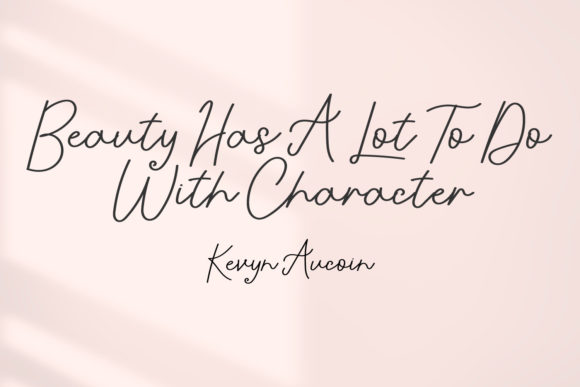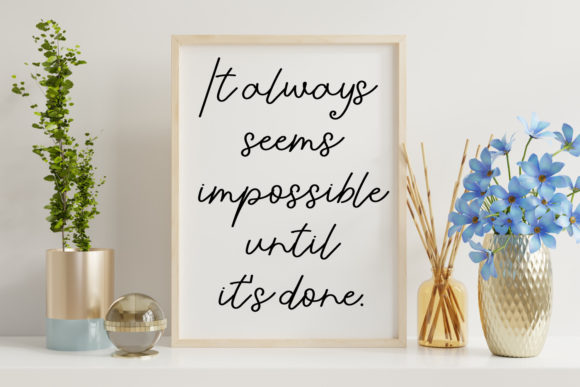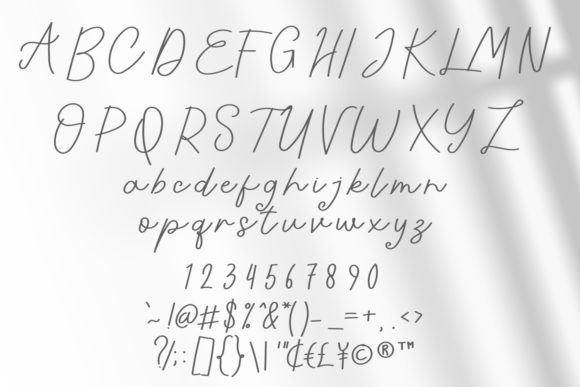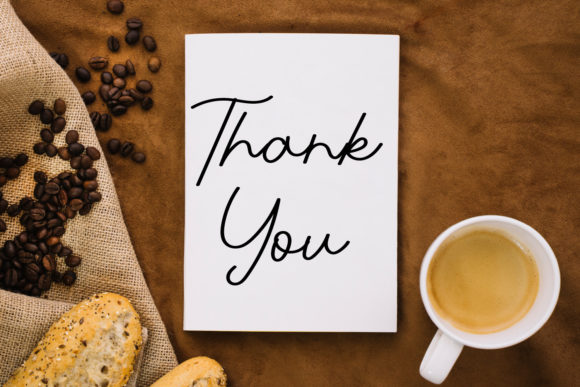
About Handwritten Font
Handwritten is a delightful and whimsical script font, characterized by its sweet, flowing, and thin strokes. With characters that dance along the baseline, this font brings a touch of luxury to any design project, adding a spark of elegance and charm.
The sweetness of Handwritten is evident in its whimsical design, making it a perfect choice for projects that require a lighthearted and playful aesthetic. The flowing and thin script adds an air of sophistication, making it versatile for a wide range of applications.
In wedding invitations, Handwritten becomes a romantic and luxurious choice. The font’s delicate strokes and dancing characters create an enchanting atmosphere, setting the tone for a celebration filled with elegance and charm. Its ability to convey both sweetness and luxury makes it an ideal companion for creating memorable invitations.
The flowing nature of Handwritten adds a sense of movement and grace to the characters, making it suitable for various design projects. Whether used in branding, packaging, or social media graphics, the font brings a touch of refinement, turning ordinary designs into visually captivating creations.
Handwritten’s thin script is particularly well-suited for projects where a delicate and subtle touch is desired. From product labels to blog headers, the font’s graceful appearance enhances the overall aesthetic, creating a sense of luxury that appeals to a discerning audience.
The dancing characters along the baseline contribute to the font’s dynamic and lively feel. This feature adds energy and personality, making Handwritten a standout choice for projects that seek to convey a sense of movement and liveliness.
In summary, Handwritten is a charming and versatile script font that brings sweetness, whimsy, and a touch of luxury to any design project. Its flowing and thin script, combined with dancing characters, make it an enchanting choice for wedding invitations, branding, packaging, and various other creative endeavors. With Handwritten, you can infuse your designs with a delightful spark that captures attention and adds an element of elegance.